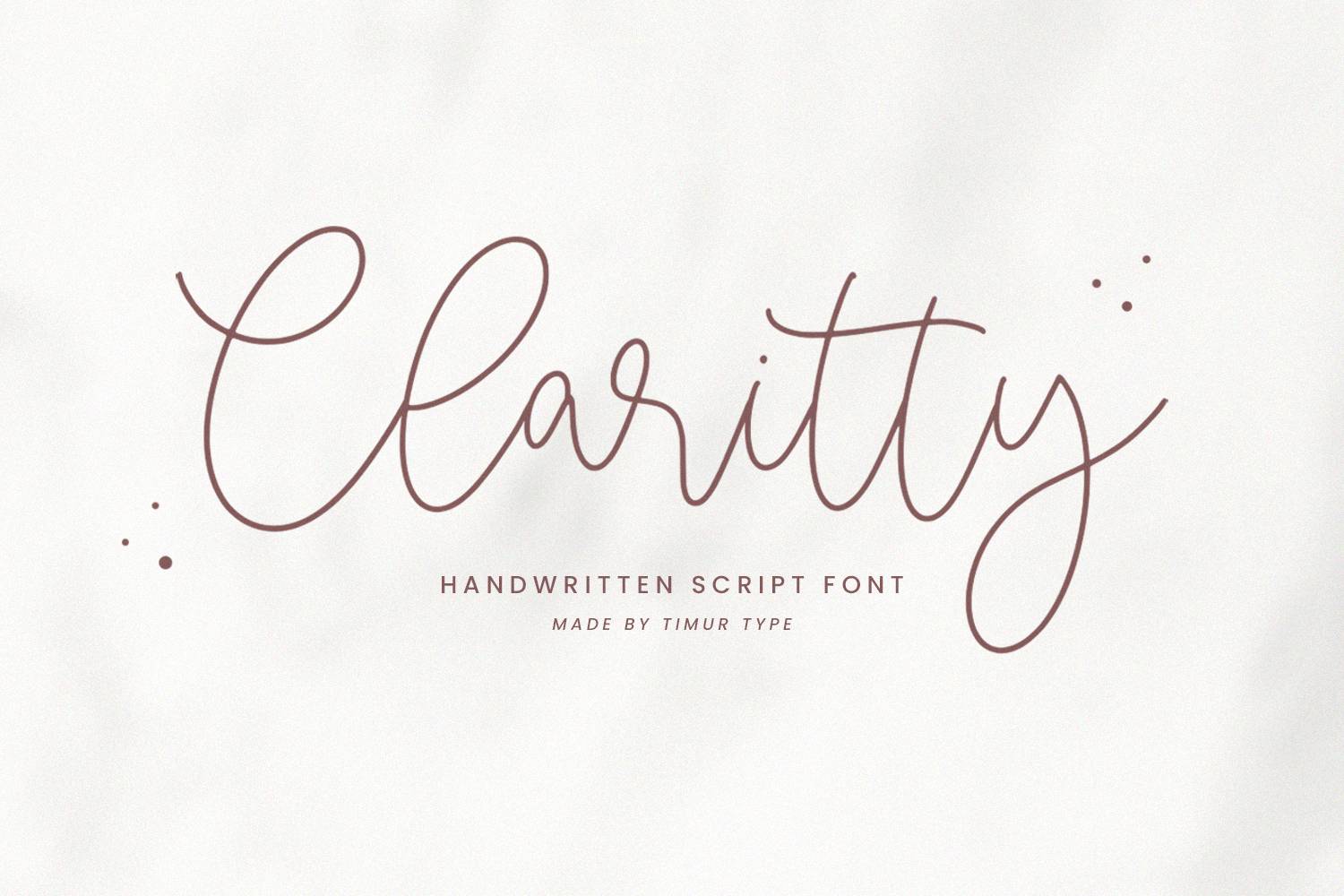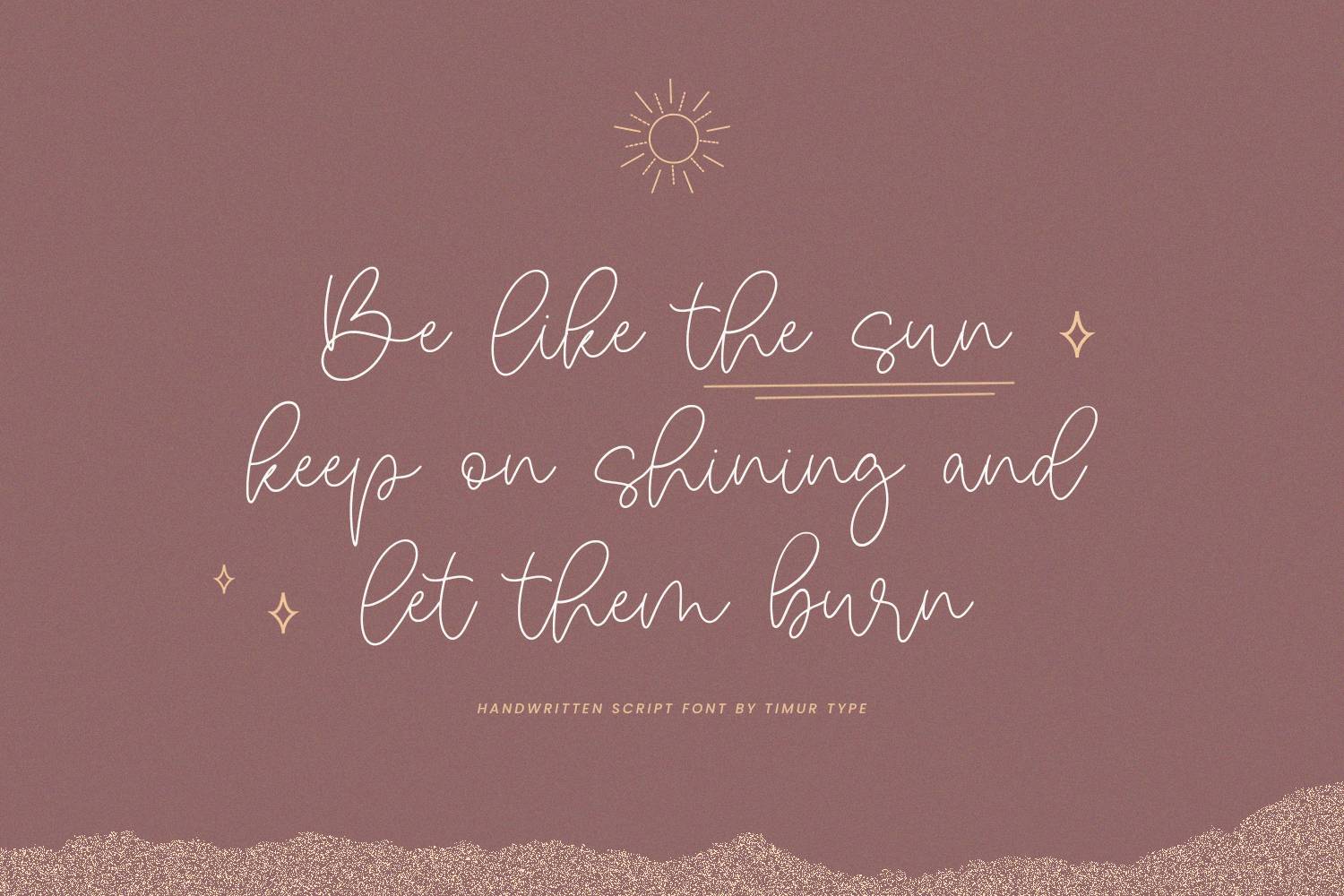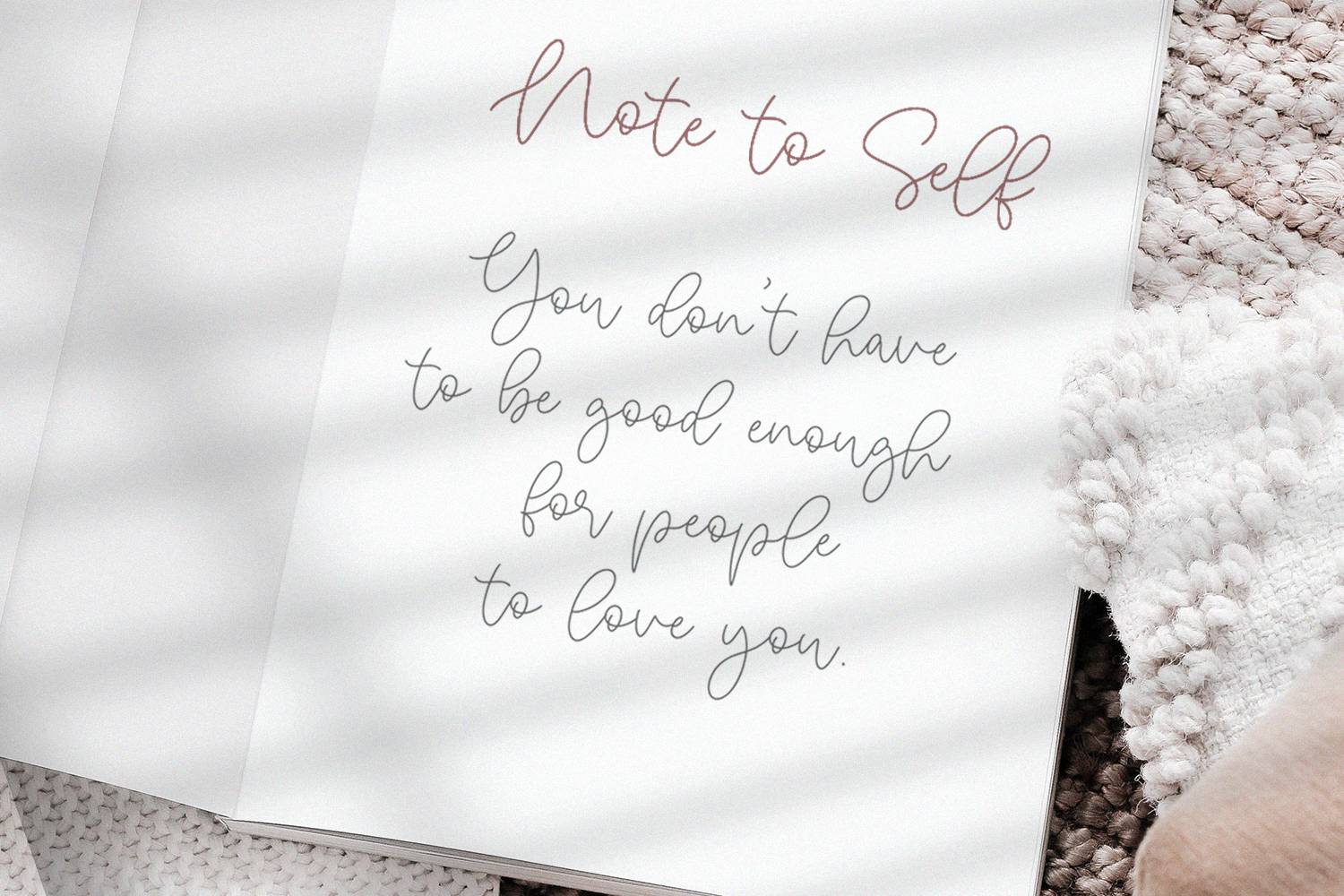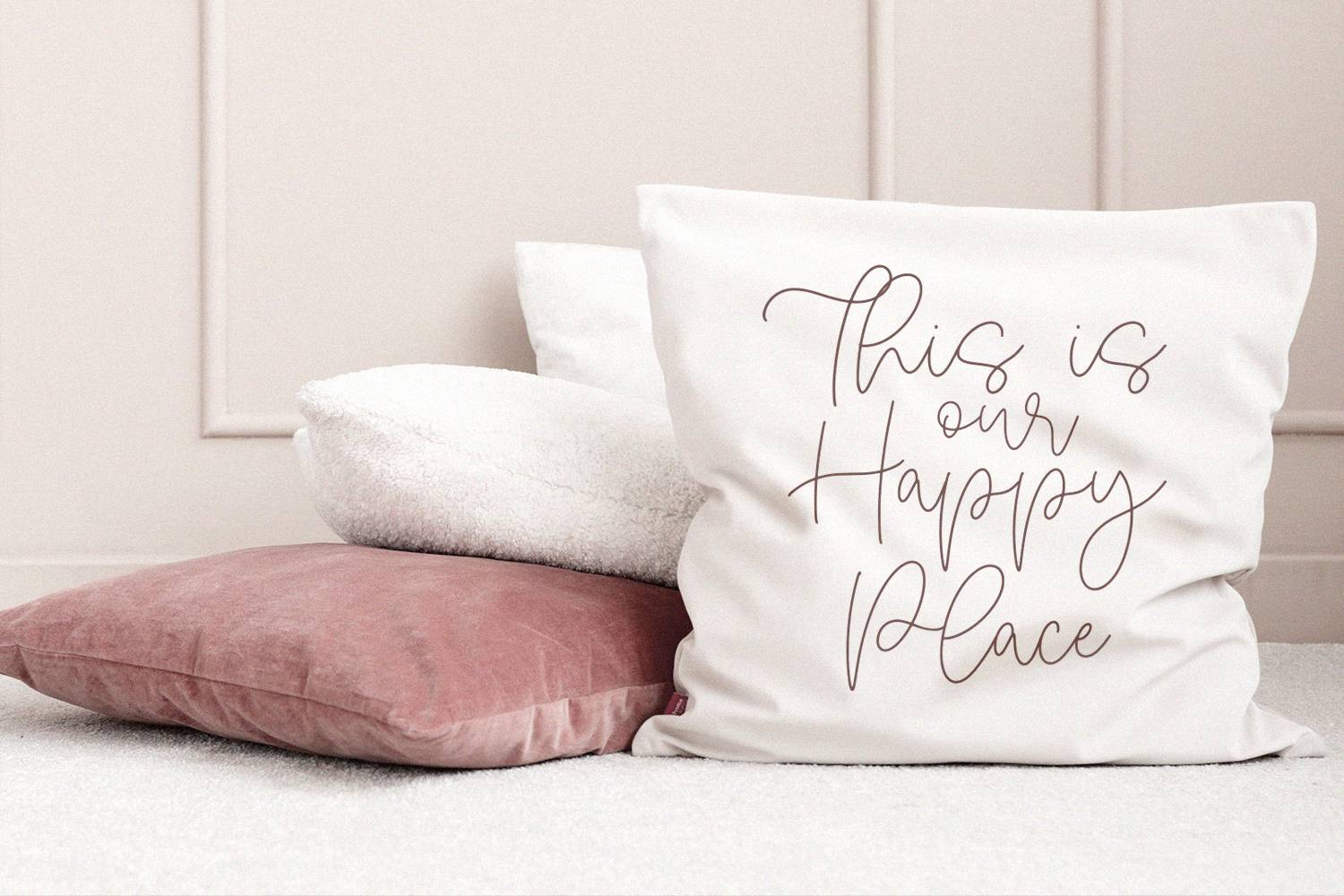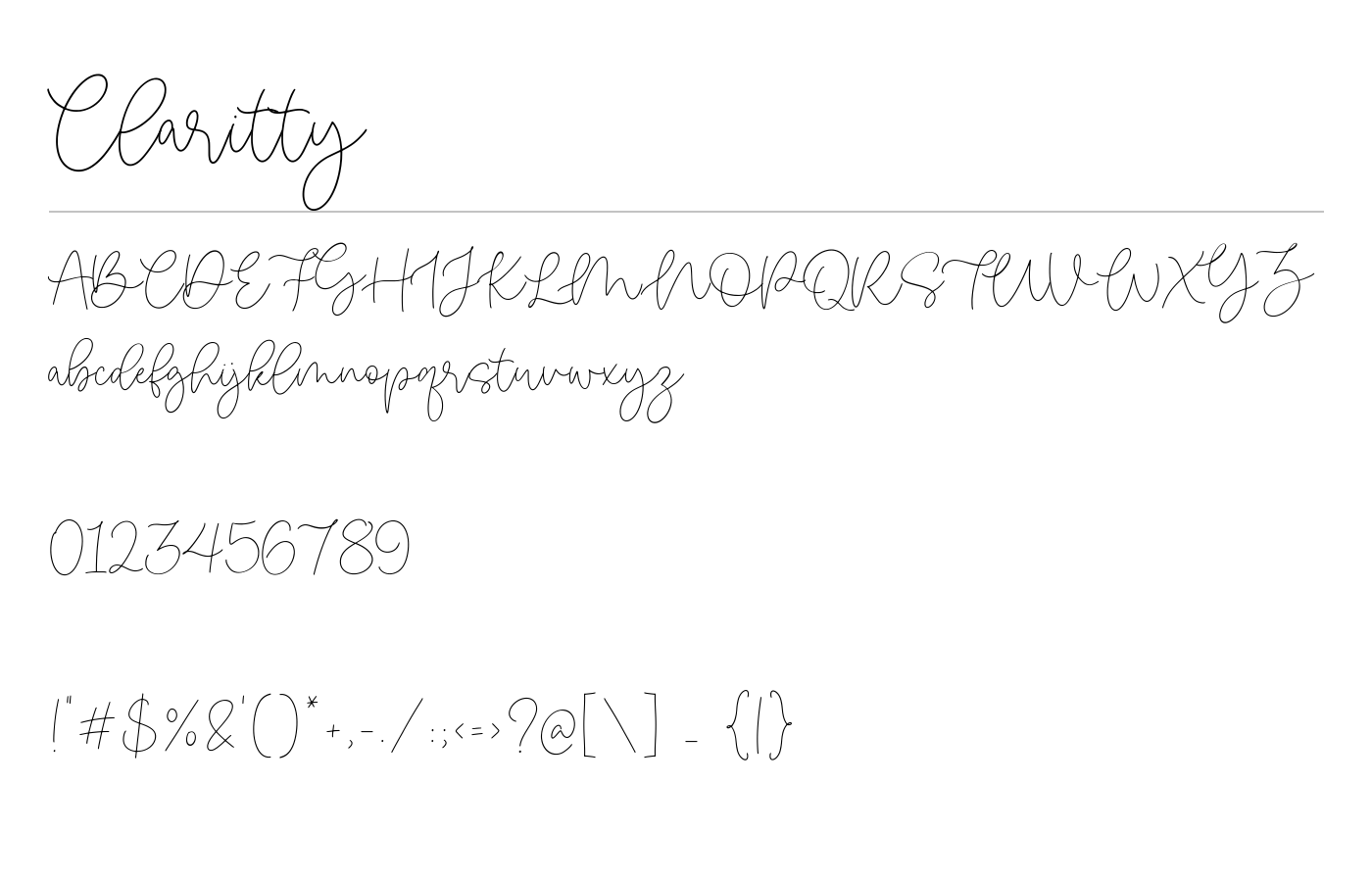
Claritty is a delicate, handwritten script font featuring thin, flowing lines and graceful loops that give it an elegant yet casual charm. Its light weight and airy structure make it ideal for personal, creative, and decorative uses such as invitations, branding, and artistic projects where a touch of sophistication and warmth is desired. This font shines in designs that seek a refined but approachable hand-drawn feel.
Claritty Font
About Claritty Font
| Font family | Claritty Font |
| Designer | Timur Type |